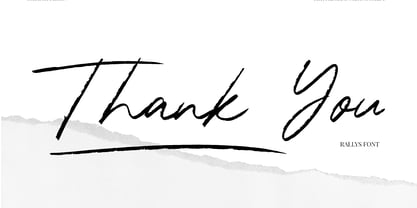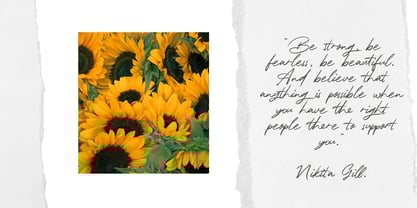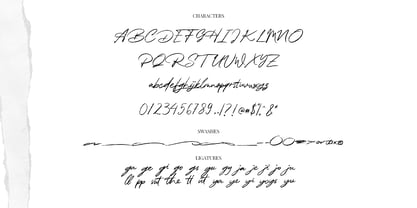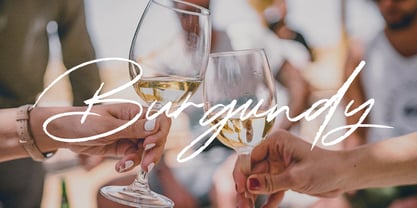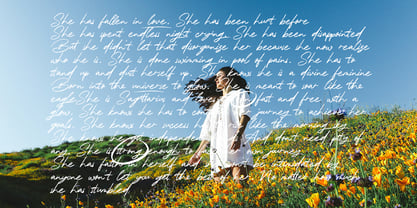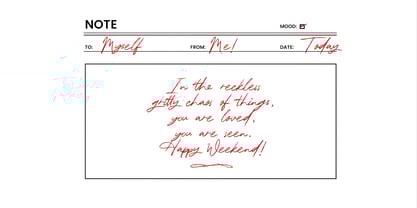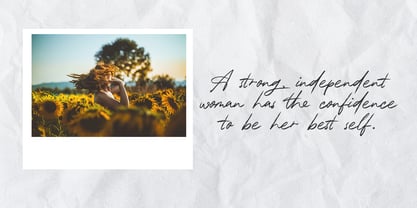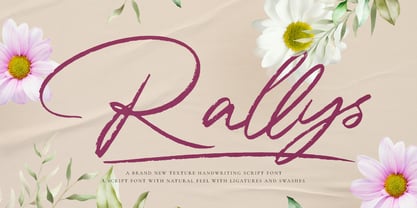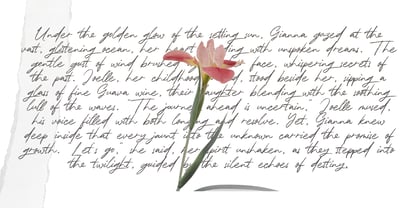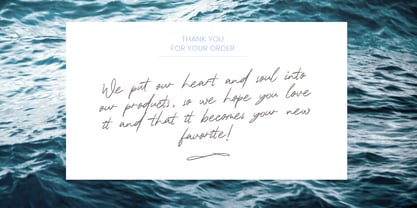
Rallys
Rallys is a beautifully textured handwriting script font that blends the charm of a signature with the grace of modern calligraphy. Crafted with natural ink strokes, it delivers an authentic hand-drawn feel that’s both casual and refined.
Perfect for wedding designs, elegant stationery, stylish invitations, signature logos, or any creative project that calls for a relaxed yet sophisticated script.
Rallys comes fully equipped with a range of ligatures to create smooth, custom looking text, expressive swashes to enhance that signature flair, and full multilingual support making it as versatile as it is stunning.
Whether you're designing for print or digital, Rallys gives your work a personal, polished touch. A must have for every creative designer's font library.